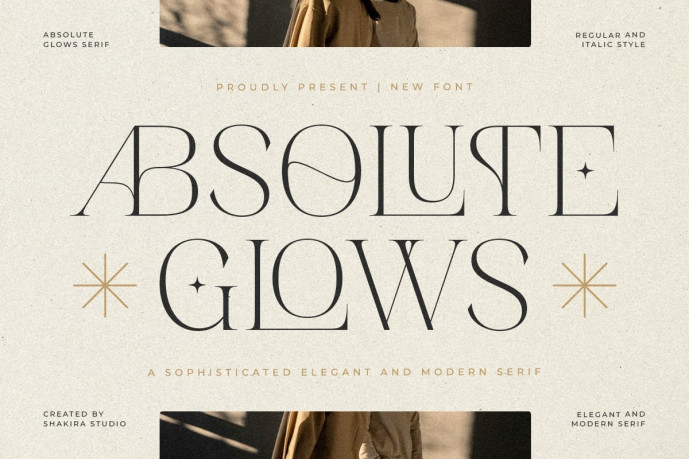
Absolute Glows Font
Designer: IdhhamCholid
Absolute Glows Font is a modern and refined typeface with graceful contrasts, luxurious proportions, and elegant sophistication. Designed to offer a sophisticated, high-end look, it is ideal for editorial layouts and premium brands.Its sophisticated letterforms make it perfect for logos, fashion labels, boutique packaging, invitations, and magazine covers.Absolute Glows helps creatives produce timeless visuals with a strong appeal for luxury.